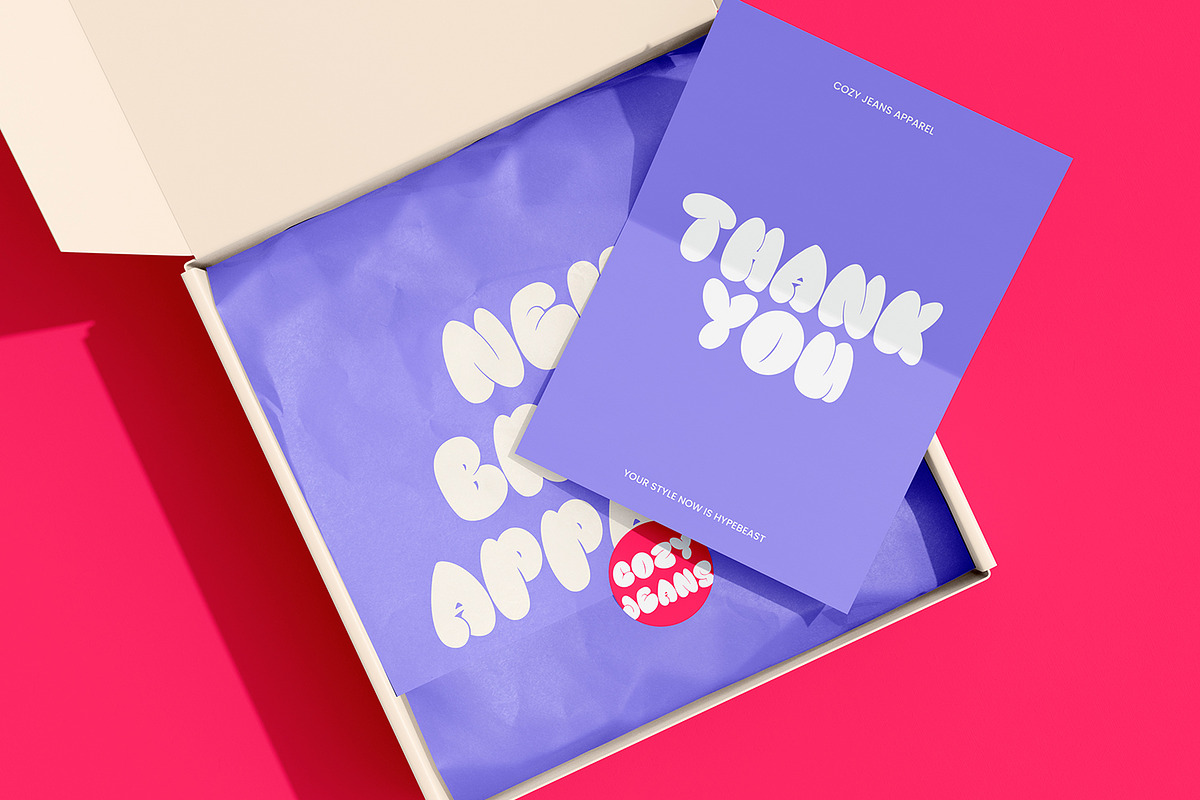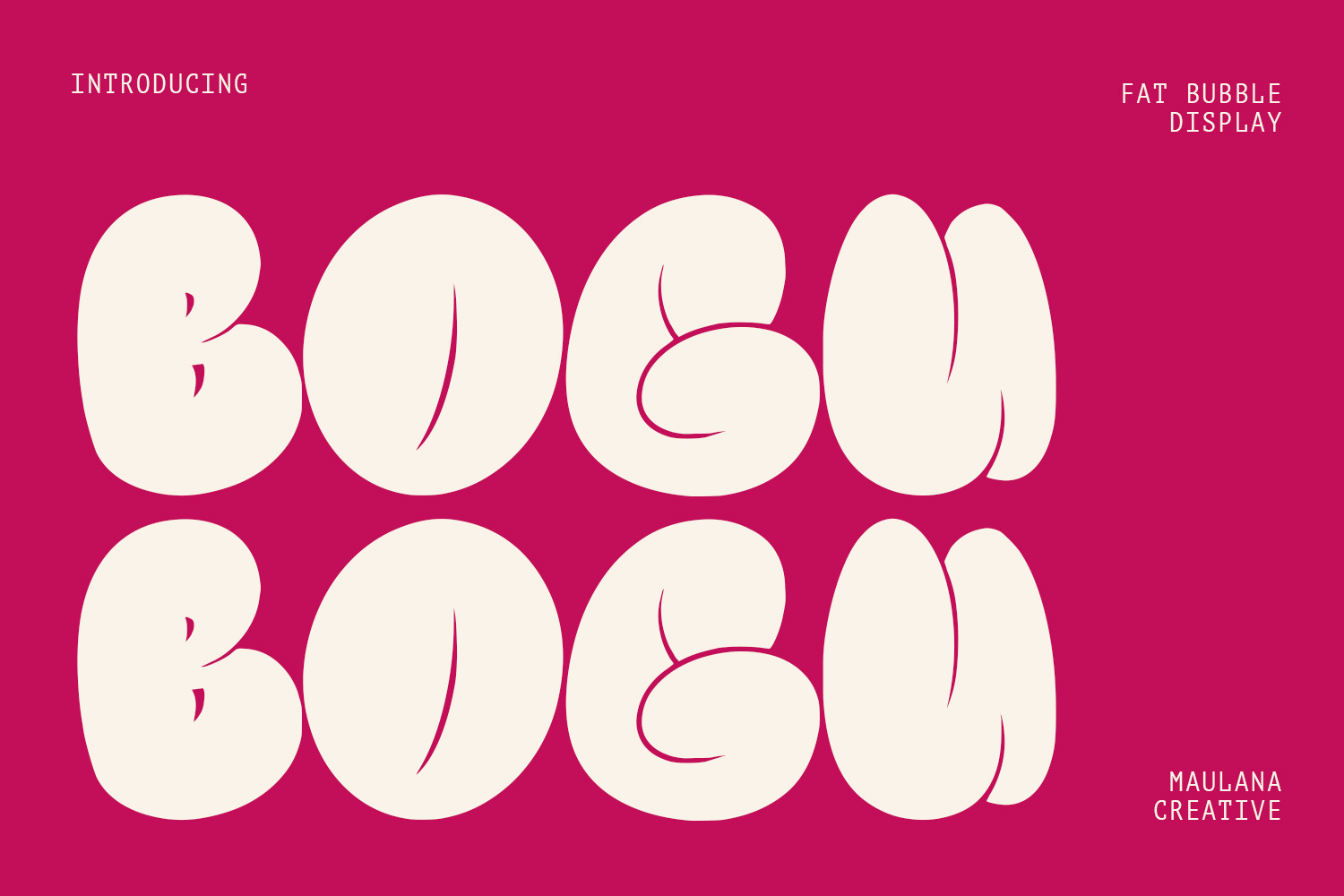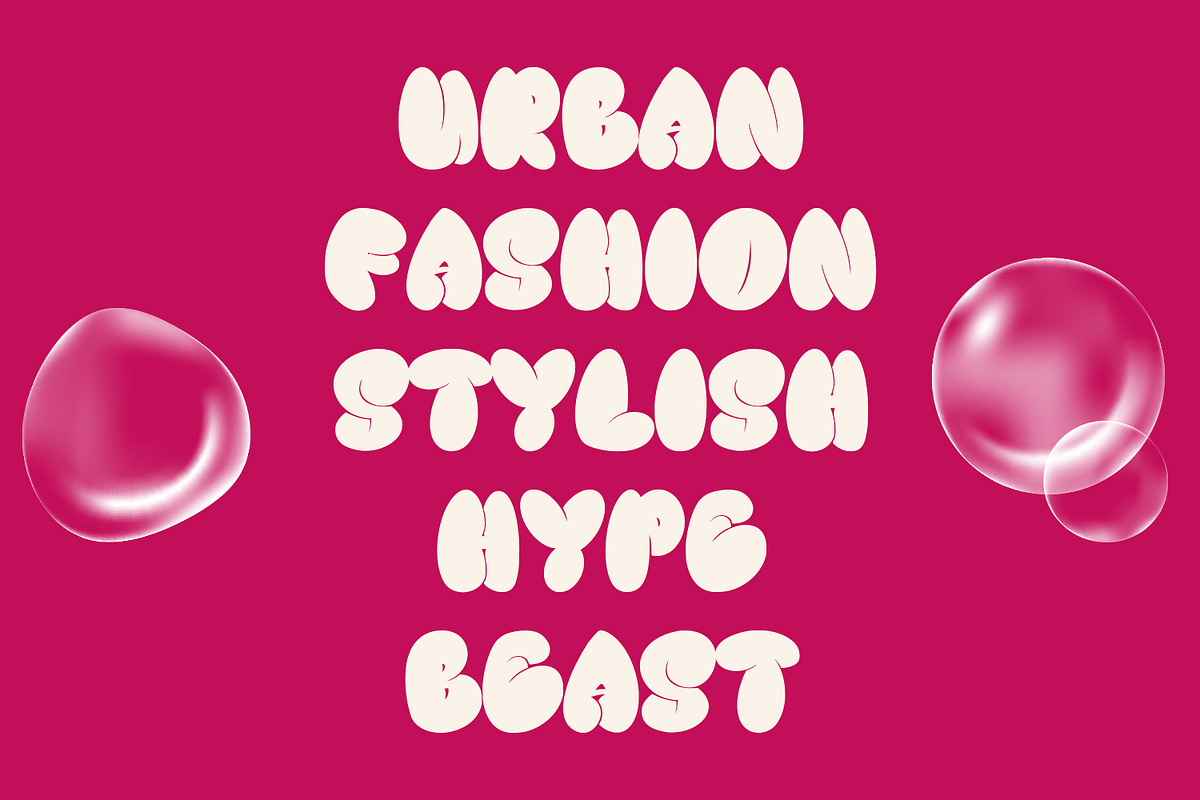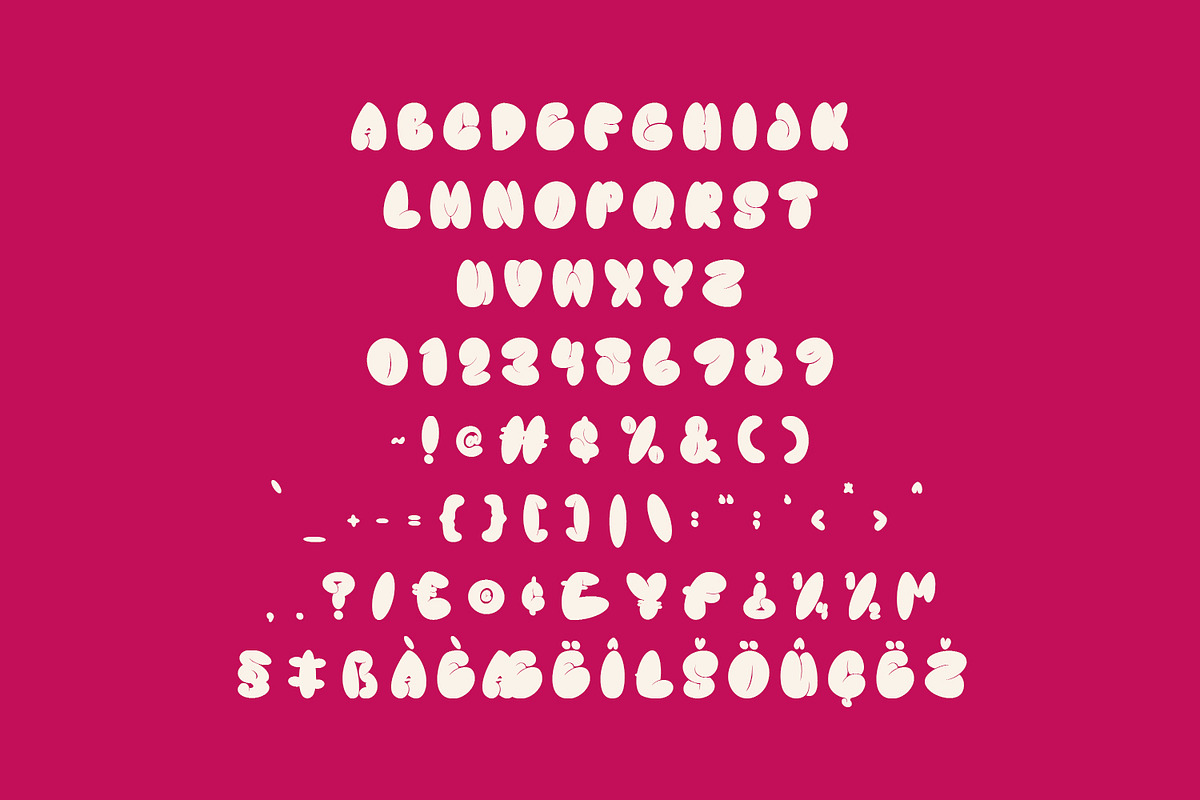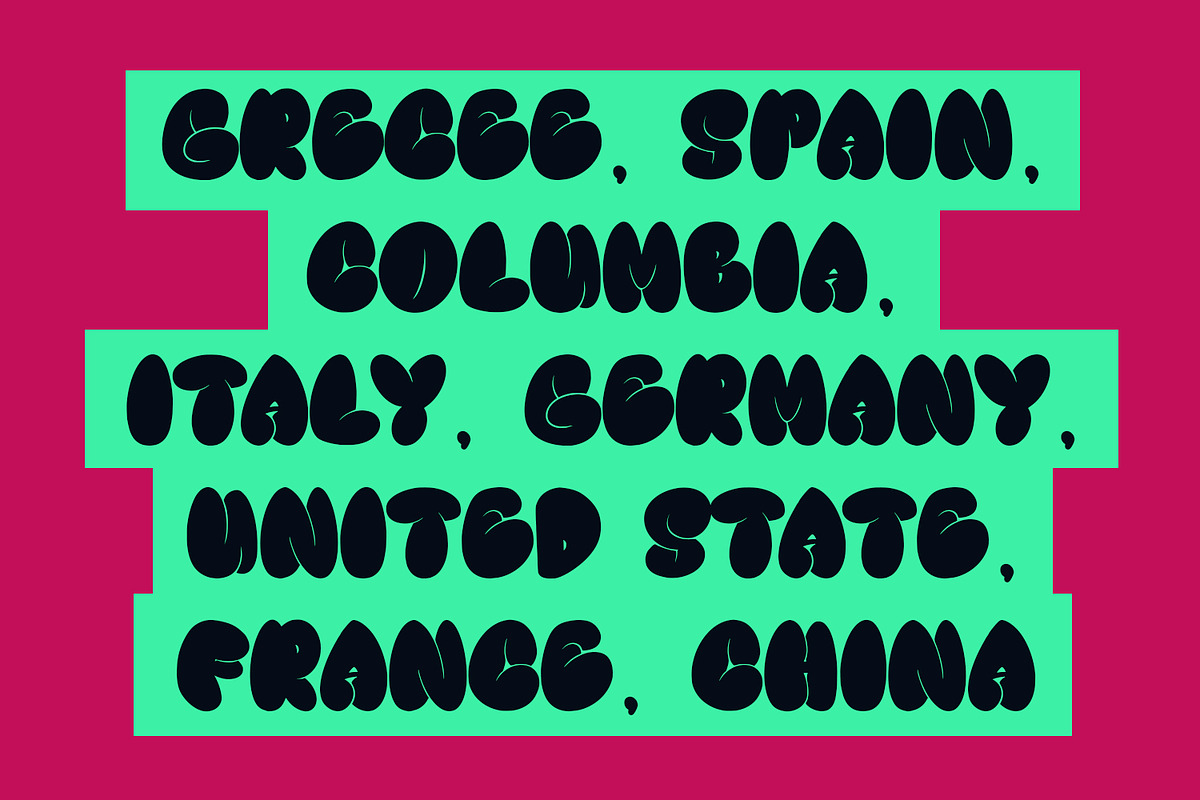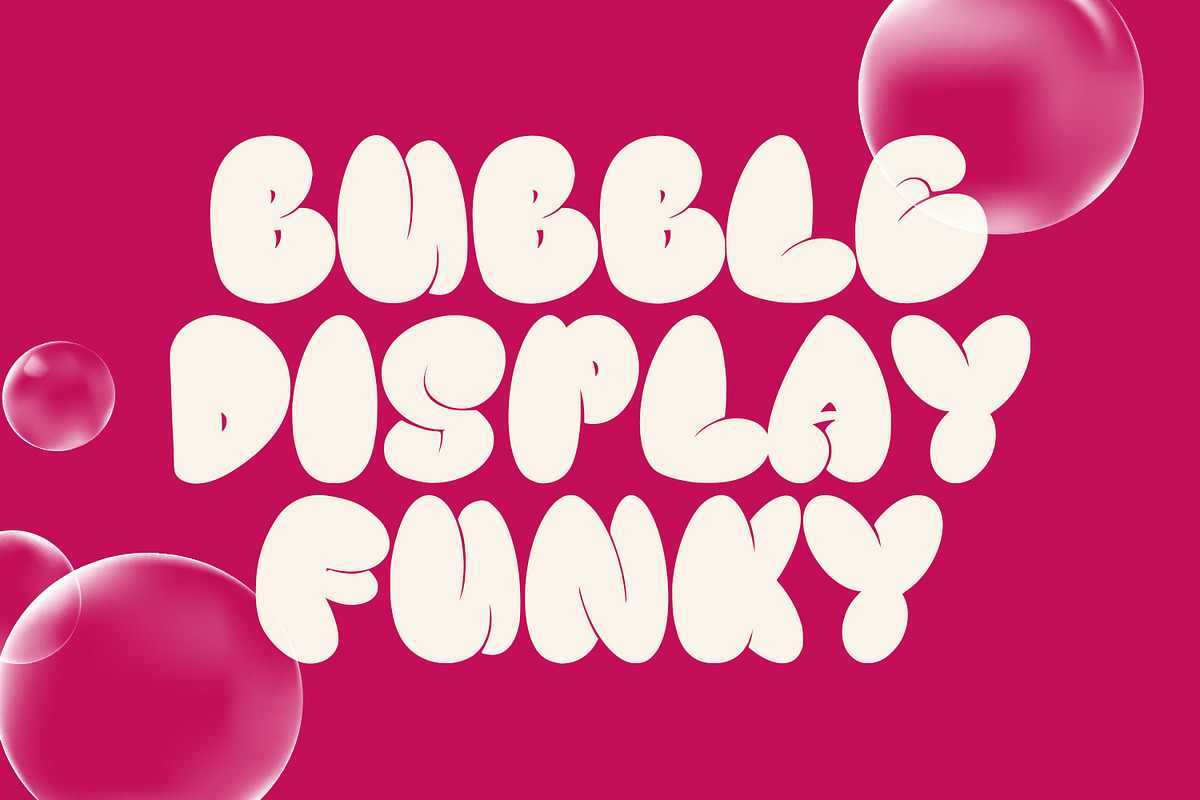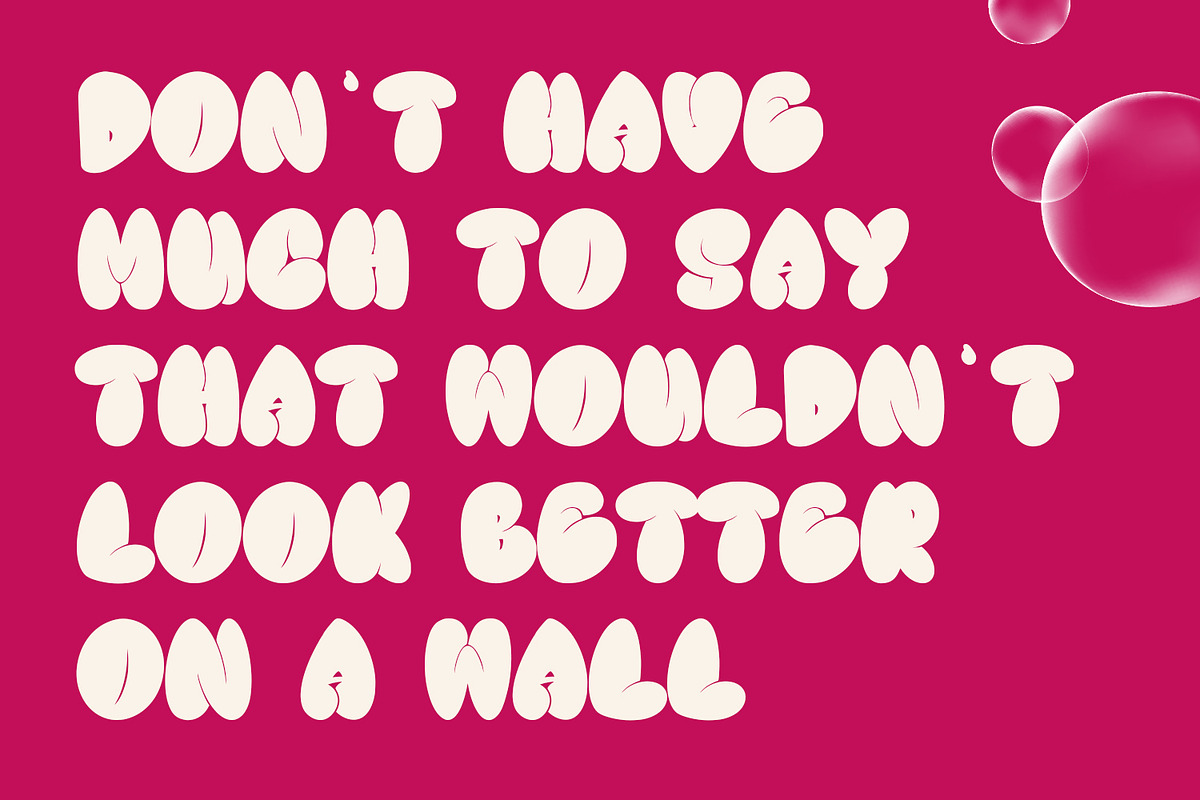
Bogu Bogu Fat Bubble Graffiti Font
Bogu Bogu fat bubble graffiti display font. Bold stroke, fun character with a awesome glyph. To give you an extra creative work. Bogu Bogu graffiti display font support multilingual more than 100+ language. This font is good for logo design, Social media, Movie Titles, Books Titles, a short text even a long text letter and good for your secondary text font with script or serif. Make a stunning work with Bogu Bogu fat bubble graffiti display font.